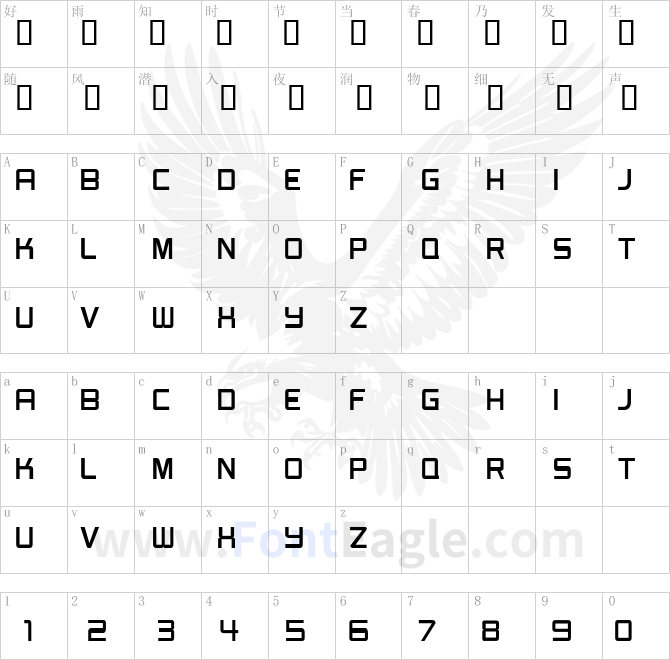
- Font name:Burger Joint JL
- Font Subfamily ID:Burger Joint JL
- Font Full Name:Burger Joint JL
- Postscript:BurgerJointJL
Burger-Joint-JL is a great font, widely used in graphic design, single-page menu design, poster design and other fields, and is deeply loved by designers.Burger-Joint-JL download.